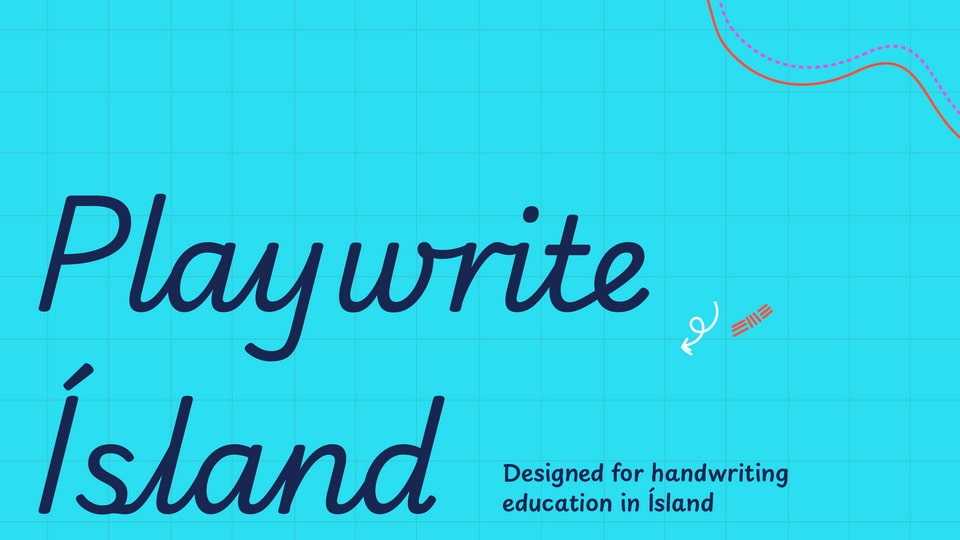
Download Playwrite font, a typeface that allows the creation of primary school cursive fonts. This slanted modern cursive handwriting is crafted for high-speed writing and features print-style uppercase letters, with ‘M’ notably having splain legs.
Designer: TypeTogether